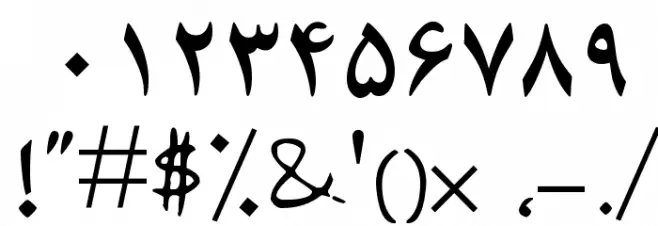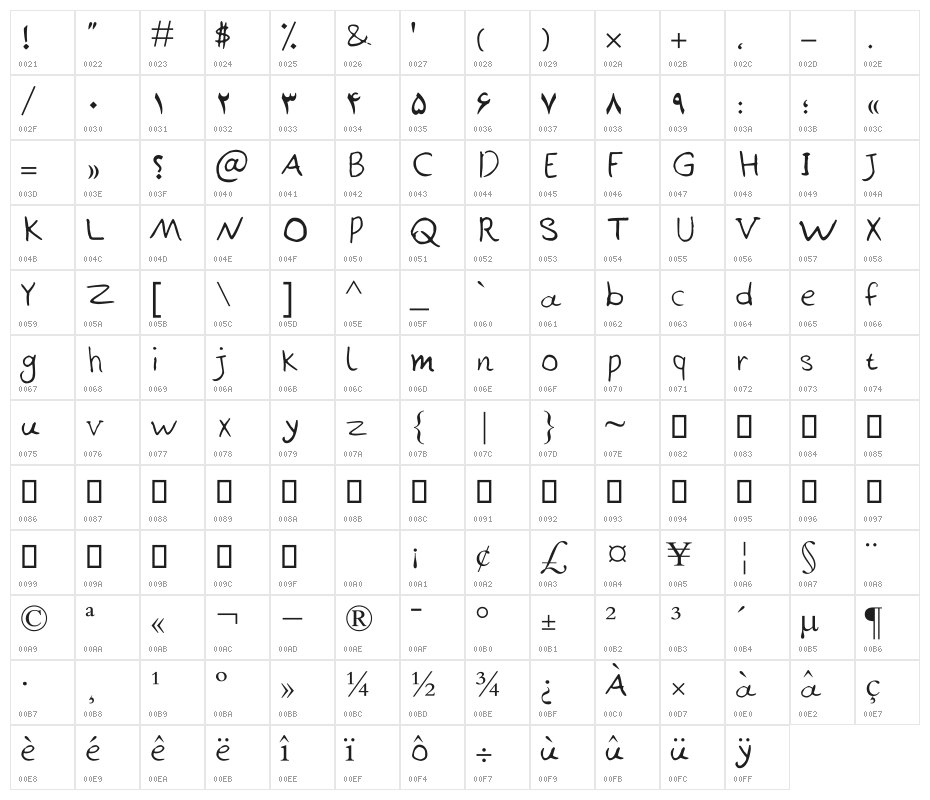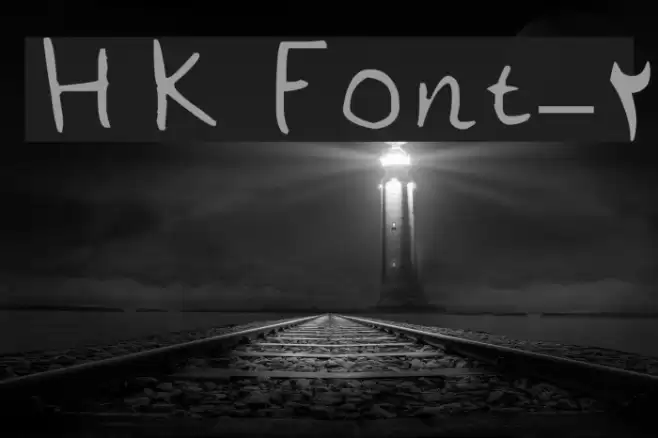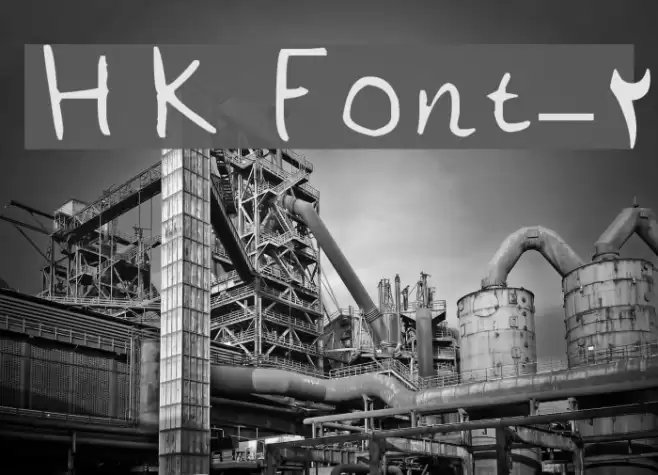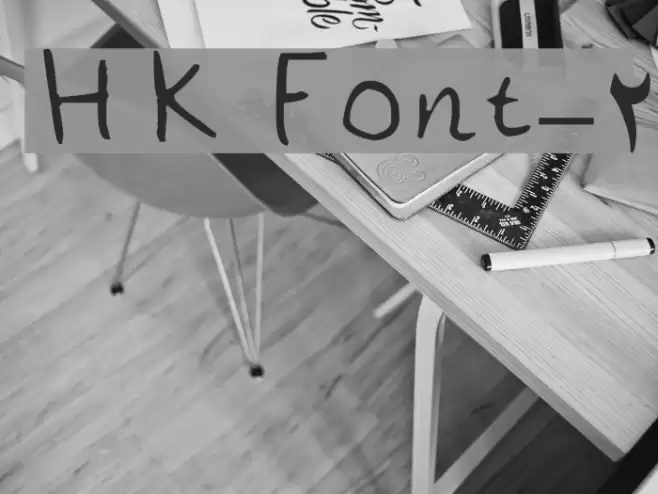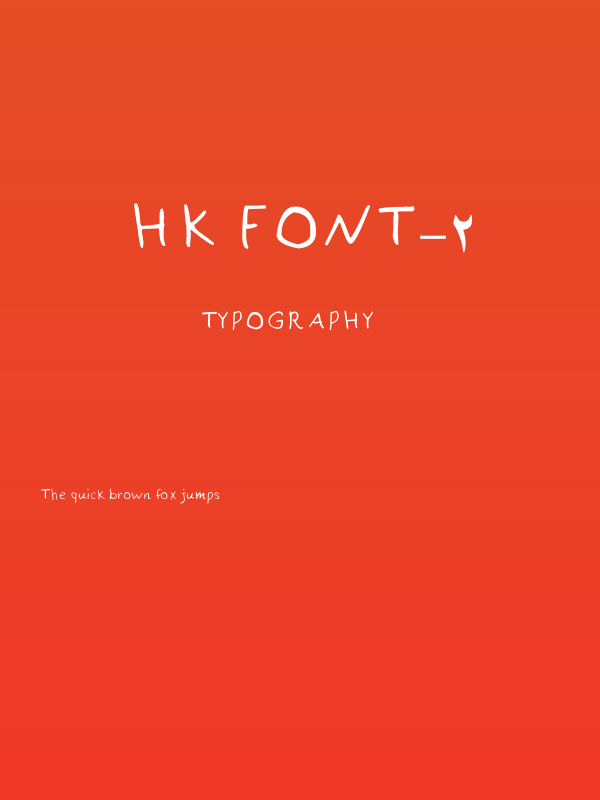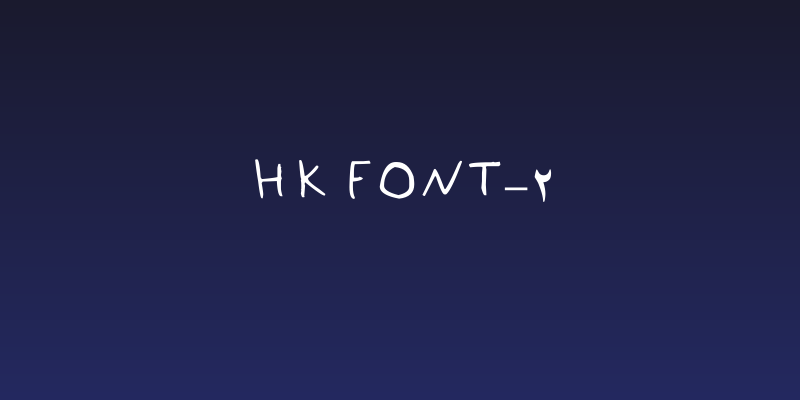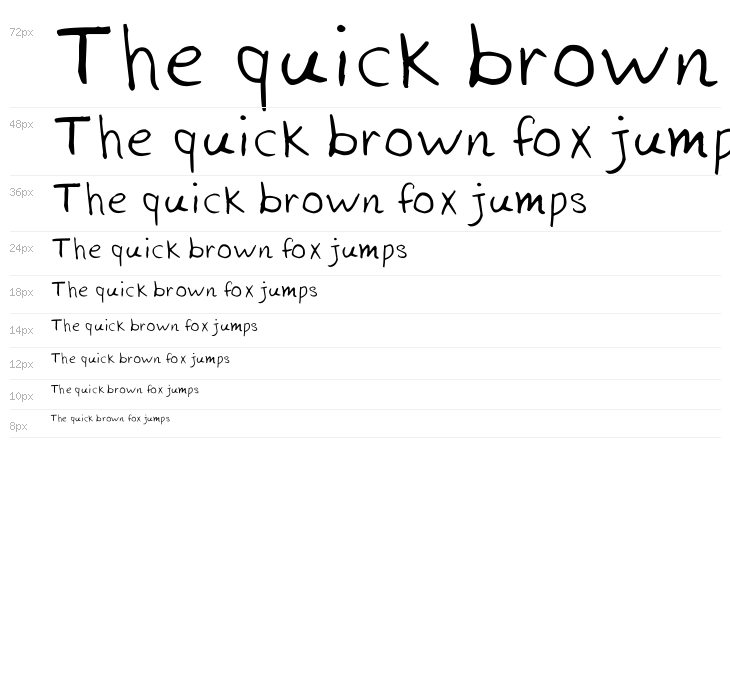
This font features a playful and informal style with a handwritten appearance. The characters have a slightly irregular and organic form, giving them a casual and approachable feel. The strokes vary in thickness, adding to the dynamic and lively nature of the font. The uppercase letters are bold and prominent, while the lowercase letters maintain a consistent flow. The numbers and special characters complement the overall style, ensuring versatility in various design contexts. This font is suitable for projects that require a personal touch or a creative flair.
| Proposed Projects | Ideal for greeting cards, children's books, casual branding, and creative posters. |